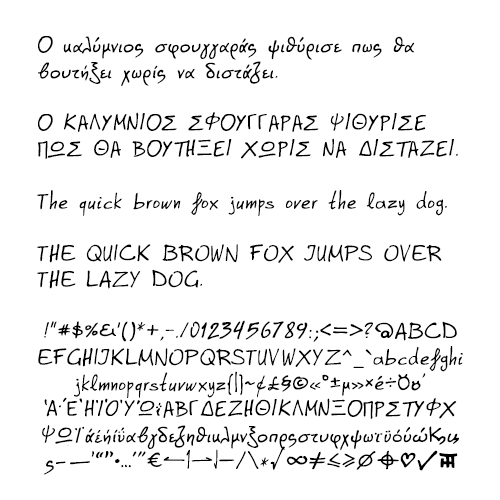
Font name: | Graphe Alpha |
Author: | Heracles Papatheodorou |
Note by Heracles Papatheodorou | |
Graphe [< Greek for script, γραφή] is a personal, handwritten font with awful kerning. It contains English, Greek and several obscure glyphs. |